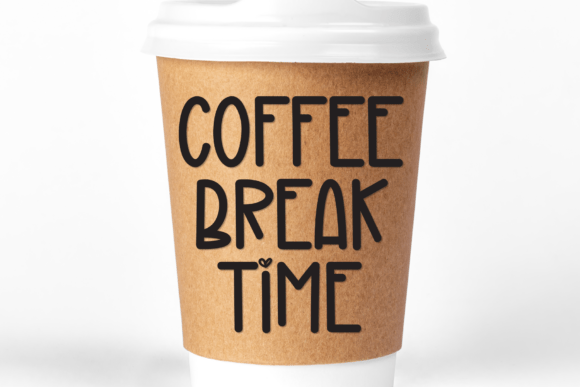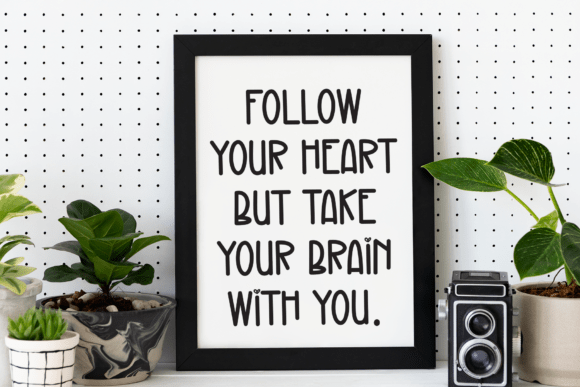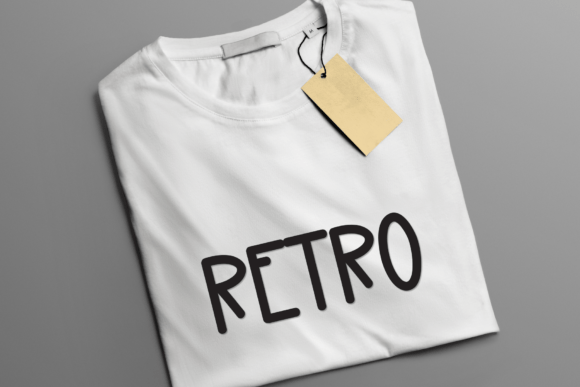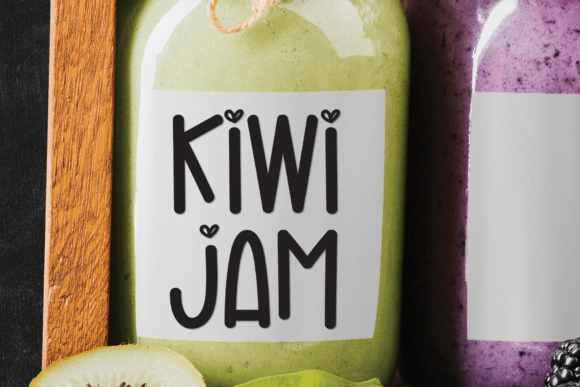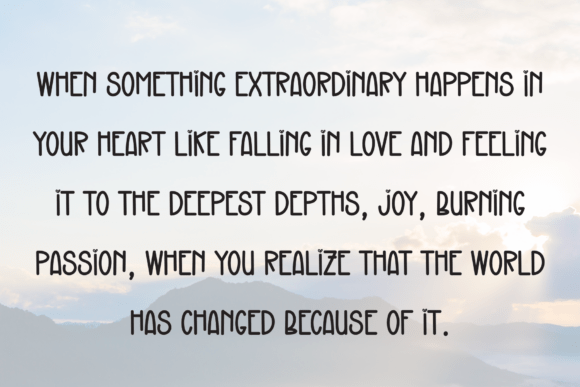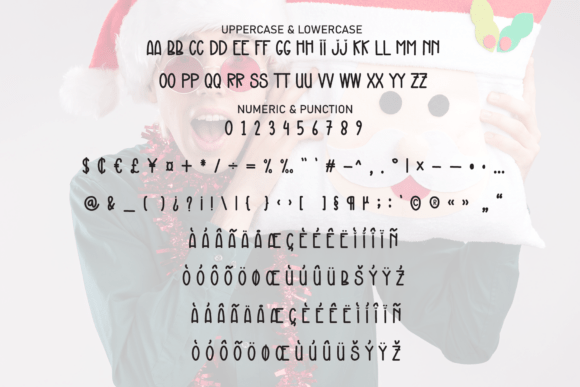
Deck the Halls with Laughter: The Joy of Funny Christmas Font
As the holiday season approaches, designers and crafters are on the lookout for the perfect typography to add some festive flair to their projects. If you’re in the market for a font that’s merry, bright, and sure to bring a smile, look no further than the Funny Christmas font. This casual display font is the epitome of modern simplicity with a playful twist, making it an ideal choice for anyone looking to infuse their designs with a dash of holiday cheer.
The Charm of Funny Christmas Font
So, what makes Funny Christmas font so special? For starters, its clean shapes and soft edges give it a friendly and approachable vibe that’s hard to resist. The well-balanced letterforms ensure that the font remains clear and stylish, even at larger sizes, making it perfect for posters, banners, and other eye-catching applications.
One of the best things about Funny Christmas font is its versatility. Whether you’re working on a poster, branding materials, packaging, or social media graphics, this font is sure to add a fresh and friendly touch to your project. Its unique blend of modern simplicity and playful charm makes it an excellent choice for a wide range of design applications.
Readability Meets Personality
While Funny Christmas font is certainly a stylish choice, it’s not just about looks – it’s also highly readable. This makes it an excellent option for designers who need to balance aesthetics with functionality. Whether you’re creating a festive flyer or a holiday-themed website, this font delivers both readability and personality in spades.
Funny Christmas font is a dream come true for designers and crafters who want to add a personal touch to their projects. With its eye-catching appeal and versatile character, this font is sure to inspire creativity and bring a smile to your face. Whether you’re a seasoned pro or just starting out, Funny Christmas font is an excellent addition to your typography toolkit.
Tips for Using Funny Christmas Font
So, how can you make the most of Funny Christmas font in your designs? Here are a few tips to get you started:
- Use it as a headline font to add a pop of personality to your posters, flyers, and brochures.
- Pair it with complementary fonts to create a unique and eye-catching visual identity.
- Don’t be afraid to get creative and try out new and unexpected applications – Funny Christmas font is versatile enough to handle just about anything you throw at it!
Get Ready to Jingle and Mingle with Funny Christmas Font
In conclusion, Funny Christmas font is the perfect way to add some holiday cheer to your designs. With its modern simplicity, playful charm, and versatile character, this font is sure to bring a smile to your face and a touch of festive flair to your projects. So why wait? Get ready to jingle and mingle with Funny Christmas font – the ultimate typography companion for the holiday season and beyond!
Key Features of Funny Christmas Font
- Clean shapes and soft edges for a friendly and approachable vibe
- Well-balanced letterforms for clarity and style
- Versatile character suitable for posters, branding, packaging, and social media graphics
- Highly readable and perfect for a wide range of design applications
- Eye-catching appeal and personality to add a personal touch to your projects
Whether you’re a designer, crafter, or just someone who loves the holiday season, Funny Christmas font is sure to become a favorite in your typography collection. So go ahead, give it a try, and see how this merry and bright font can add some festive fun to your designs!